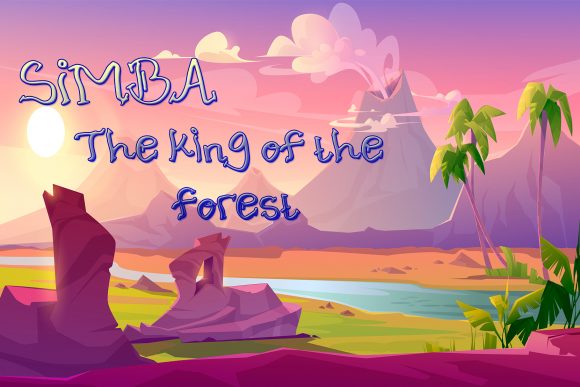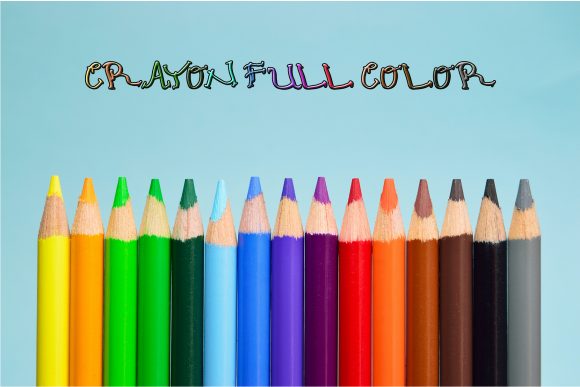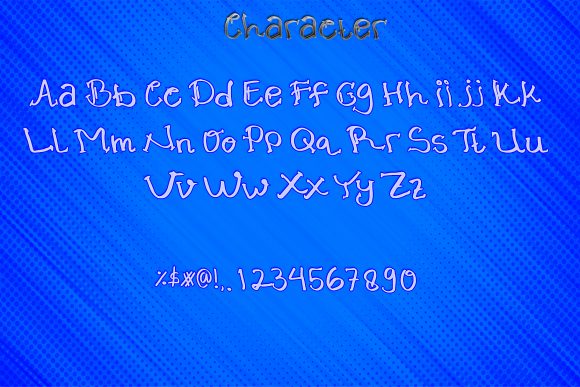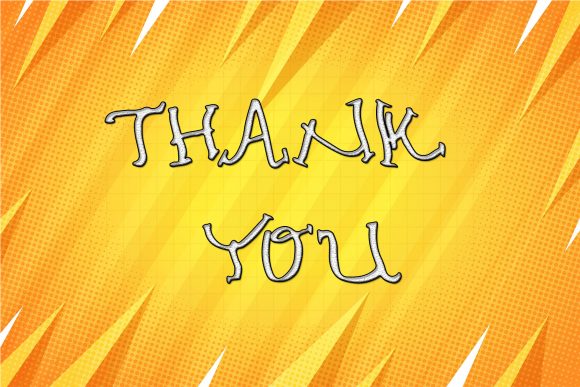
Introduction to Marino Kouya Font Font
Fonts play a crucial role in design, and the Marino Kouya Font font is a typeface that brings both character and versatility to any project. Whether you’re working on a branding project, a website, or a print design, the Marino Kouya Font font offers a unique style that can elevate your work.
Marino Kouya is a handwritten script font, with an elegant and beautiful look.
It looks stunning on wedding invitations, thank you cards, quotes, greeting cards, logos, business cards and every other design which needs a handwritten touch .
The Marino Kouya Font font is more than just a typeface – it’s a design tool that helps you communicate your message with style and clarity. Its unique character set and versatile design make it suitable for a wide range of applications, from elegant invitations to bold headlines.
With its carefully crafted letterforms and balanced proportions, the Marino Kouya Font font ensures readability and visual appeal across all mediums.
The Marino Kouya Font font stands out with its unique design, exceptional readability, and versatility across various design applications.